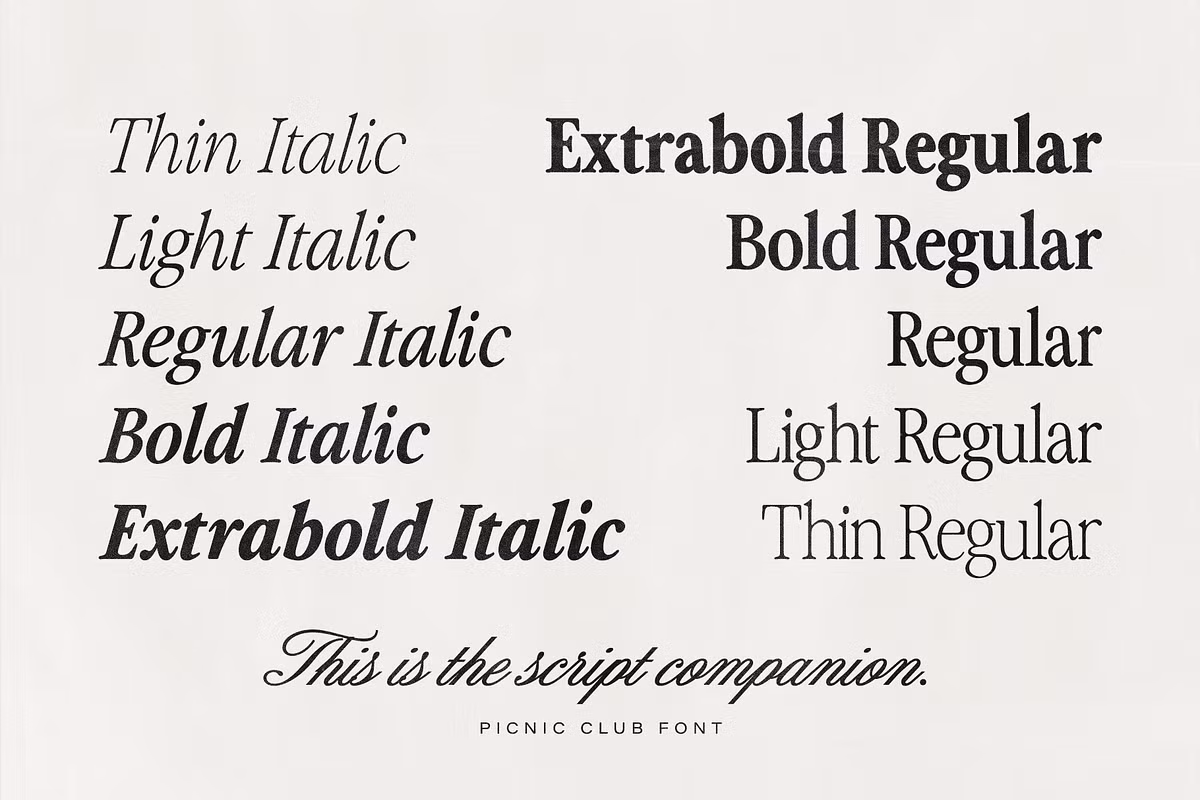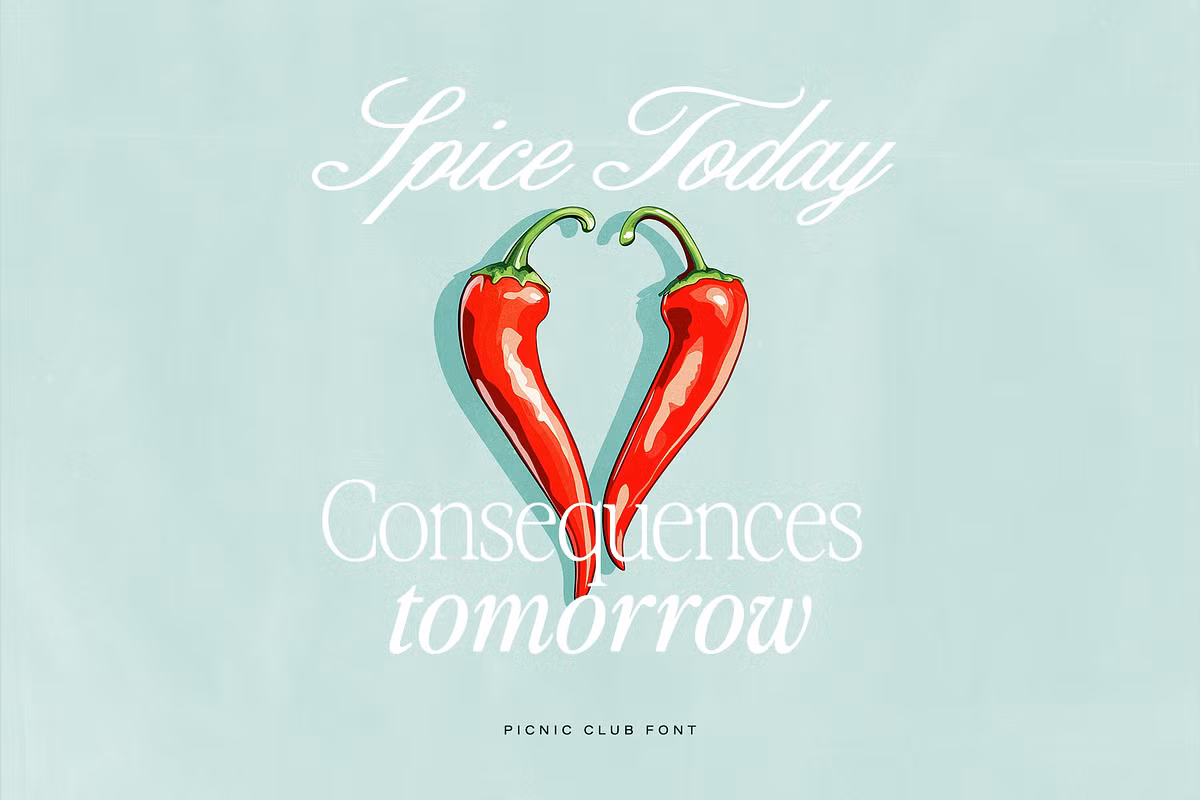
The Picnic Club 11 Fonts: Stylish Vintage Typeface Collection
The Picnic Club font is a fun, old-school serif font that brings back the cool vibes of the 80s, but with a modern twist. It was made to be a display font, perfect for grabbing attention with big, bold headlines and giving your brand a retro feel. But over time, it’s grown into a whole font system that can be used for lots of different design projects. With its stylish, vintage look, The Picnic Club font is more than just a tool – it’s a partner that can help take your designs to the next level. Whether you’re looking to add some nostalgia to your work or just want a font that’s a little bit different, The Picnic Club is a great choice. It’s perfect for making a statement and giving your projects a unique, eye-catching feel.
The Picnic Club has a one-of-a-kind style that brings together old and new. It takes ideas from the bright, bold fonts of the 80s, adding a touch of fun and lightheartedness to your work. The little details, like the serifs, are carefully made to give a classic feel that’s still modern and fresh. This makes it perfect for all sorts of projects. With its unique blend of nostalgia and contemporary flair, The Picnic Club is sure to add a playful twist to your designs, making them stand out in a crowd. Whether you’re working on a fun, creative project or something more serious, this typeface collection is a great choice. It’s versatile, stylish, and full of personality, making it a great addition to any designer’s toolkit.
The different weights of The Picnic Club font family, ranging from the lightweight Thin to the heavy ExtraBold, give designers the freedom to create a visually appealing hierarchy in their work. This means you can use the various weights to draw attention to specific parts of your design, making it easier for people to read and interact with. And with the script font added to the mix, you get a beautiful, handwritten feel that brings a touch of personality and warmth to your typography. By combining the serif styles with the script font, you can add a sense of charm and whimsy to your designs, making them more engaging and effective. Whether you’re working on a project that requires a bold, attention-grabbing headline or a more subtle, elegant body text, The Picnic Club font family has the versatility to help you achieve your goals.
Character Sets
The Picnic Club font has a wide range of characters, which makes it really versatile for different languages and design projects. It comes in Regular and Italic styles, and you can choose from various weights too. Plus, it has separate variable files, so you can easily change the style to fit the tone and mood of what you’re working on. This flexibility is really useful, as it allows you to experiment with different looks and feels until you find the one that’s just right. Whether you’re designing something formal or casual, the Picnic Club font has got you covered.
The Picnic Club’s design options are even better with special characters and ligatures. You can make a fancy logo or a fun invitation, and the characters will help you be creative. This makes The Picnic Club a great tool for designers who want to make something unique.
The Picnic Club is a versatile typeface that shines in numerous design scenarios. Here are some of the most effective use cases:
- Display Typography: Perfect for bold headlines and eye-catching titles, The Picnic Club commands attention and adds personality to your projects.
- Brand Identities: Whether you’re creating a logo or an entire branding package, this font collection brings a distinctive character that resonates with audiences.
- Advertising & Packaging: The retro-inspired vibe makes it an ideal choice for packaging designs that aim to evoke nostalgia while maintaining modern appeal.
- Editorial Design: From magazines to blogs, The Picnic Club can elevate your editorial layout, enhancing both aesthetics and readability.
- Titles & Headlines: Grab your readers’ attention with striking titles that showcase the unique flair of The Picnic Club.
By utilizing The Picnic Club across these varied applications, you can create visually captivating designs that engage and inspire.
Consider pairing The Picnic Club with complementary typefaces to enhance your design projects further. Mixing and matching styles can create a unique visual identity that captivates audiences while maintaining readability.